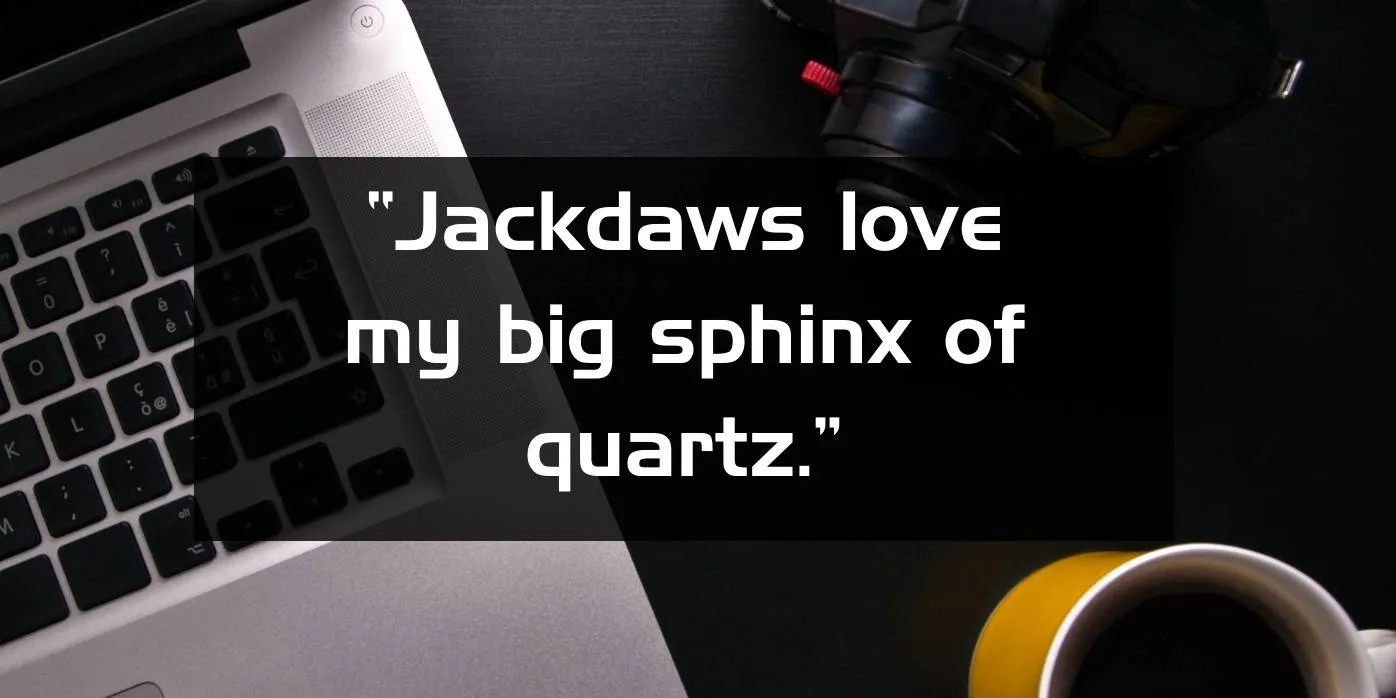
Handel Gothic Font
Here, we are going to introduce a new stylish typeface that is known by the name Handel Gothic Font. This typeface was developed by Robert Throgman. It belongs to the Sans Serif typeface. This typeface is well-suited for both digital and print media.
With its clean, modern aesthetic, Handel Gothic Font is a great choice for anyone looking to add a touch of sophistication to their designs. It features crisp letterforms that make it easy to read at any size, and its geometric structure ensures that it will look good in a variety of settings. Whether you are designing a website, brochure, or other marketing materials, this cute Font can help elevate your work to the next level. You can also utilize its alternative exo font.
Some of the key characteristics of this stunning font include its high x-height and open counter shapes, which give it an airy feel that makes it comfortable to read. It also incorporates subtle curves into its design, which helps to soften its overall appearance and give it a more feminine feel. You will have to use its generator tool which is perfect for various designs.